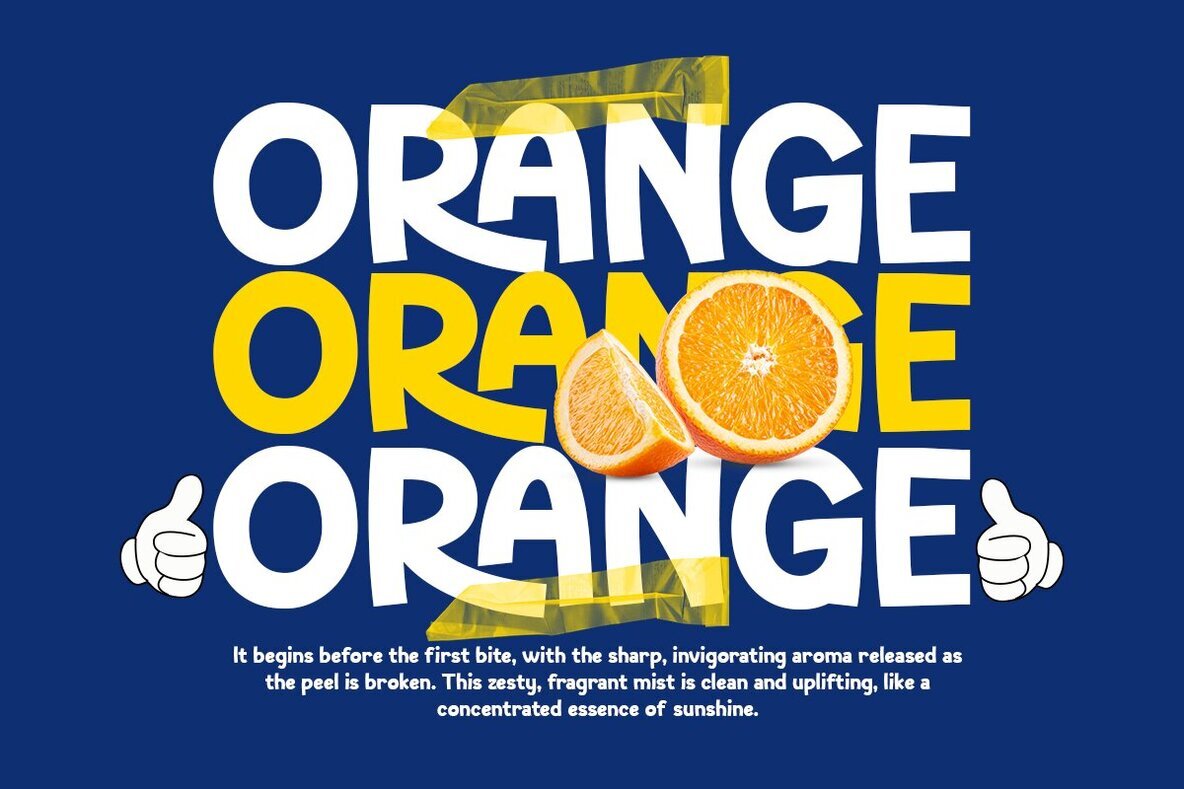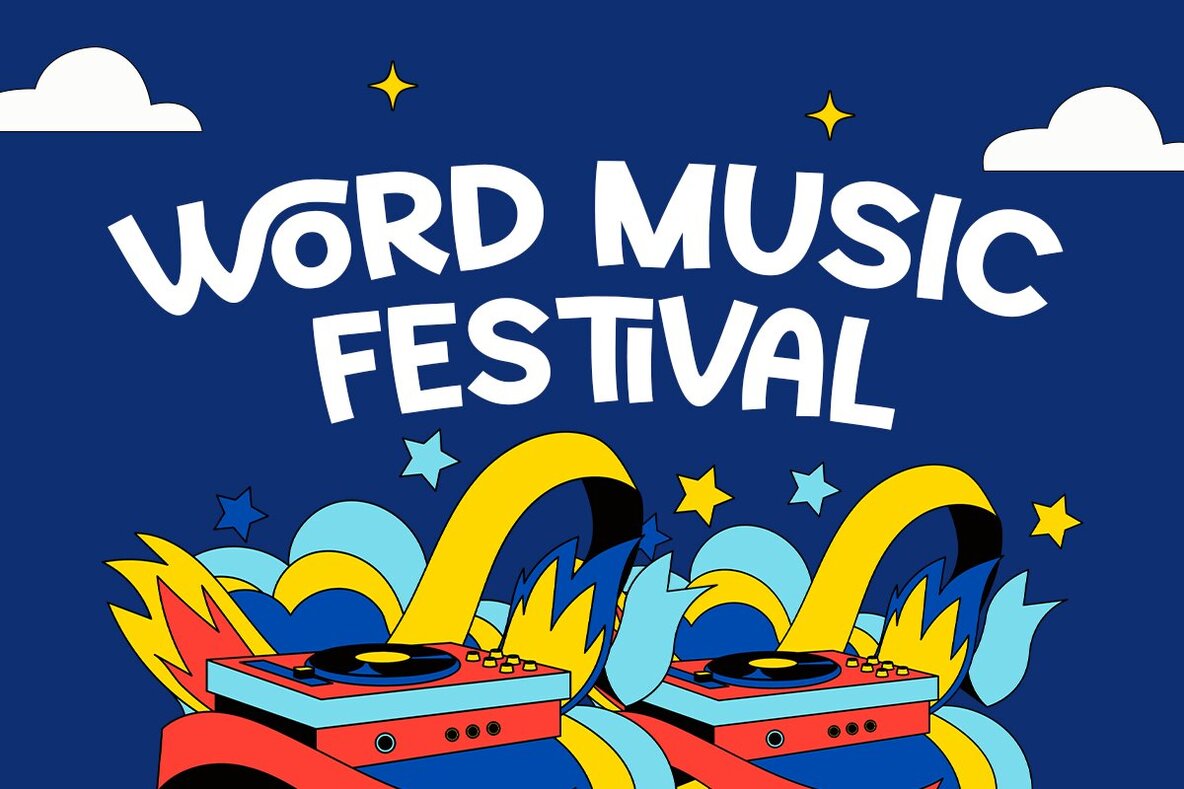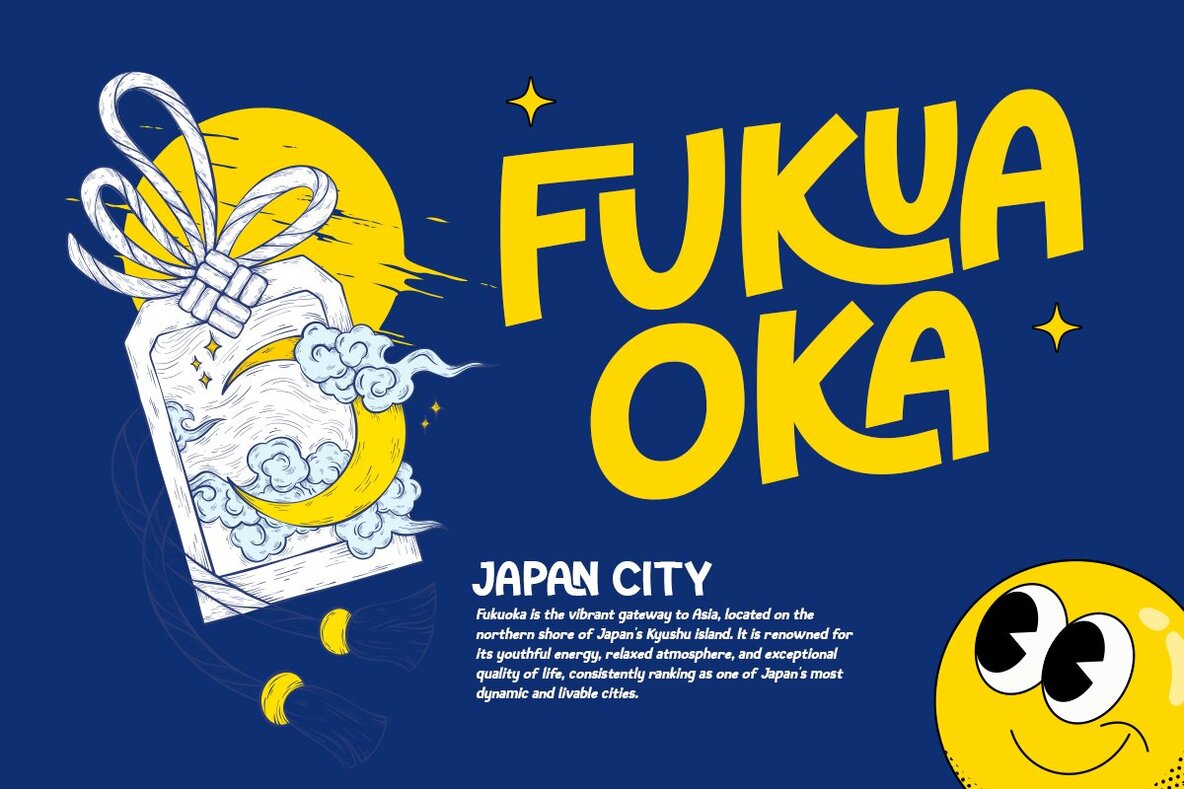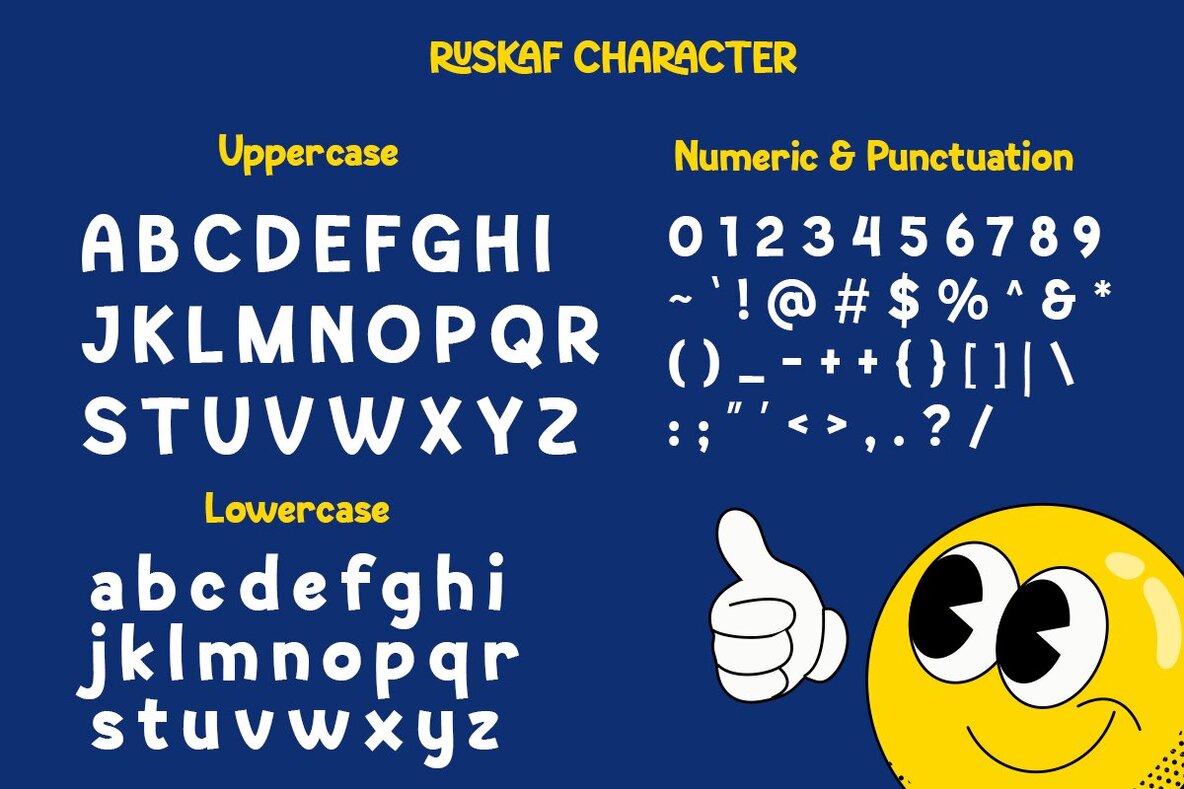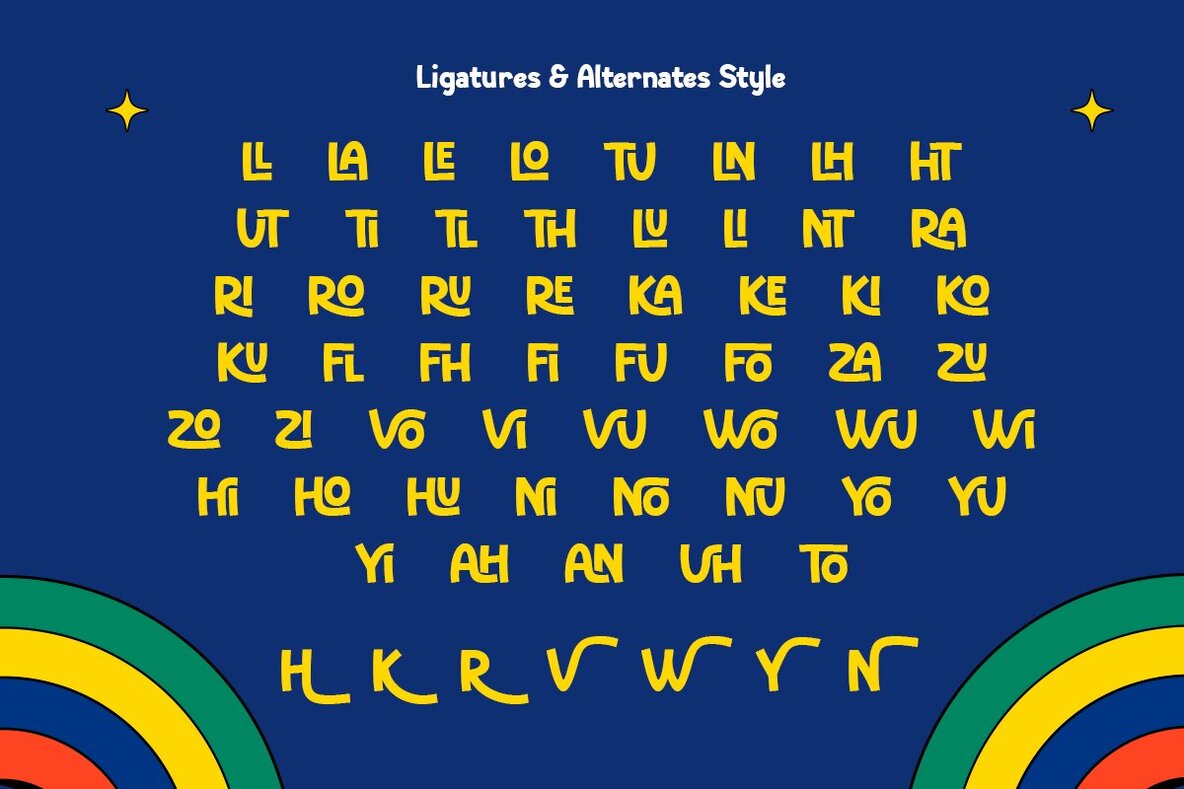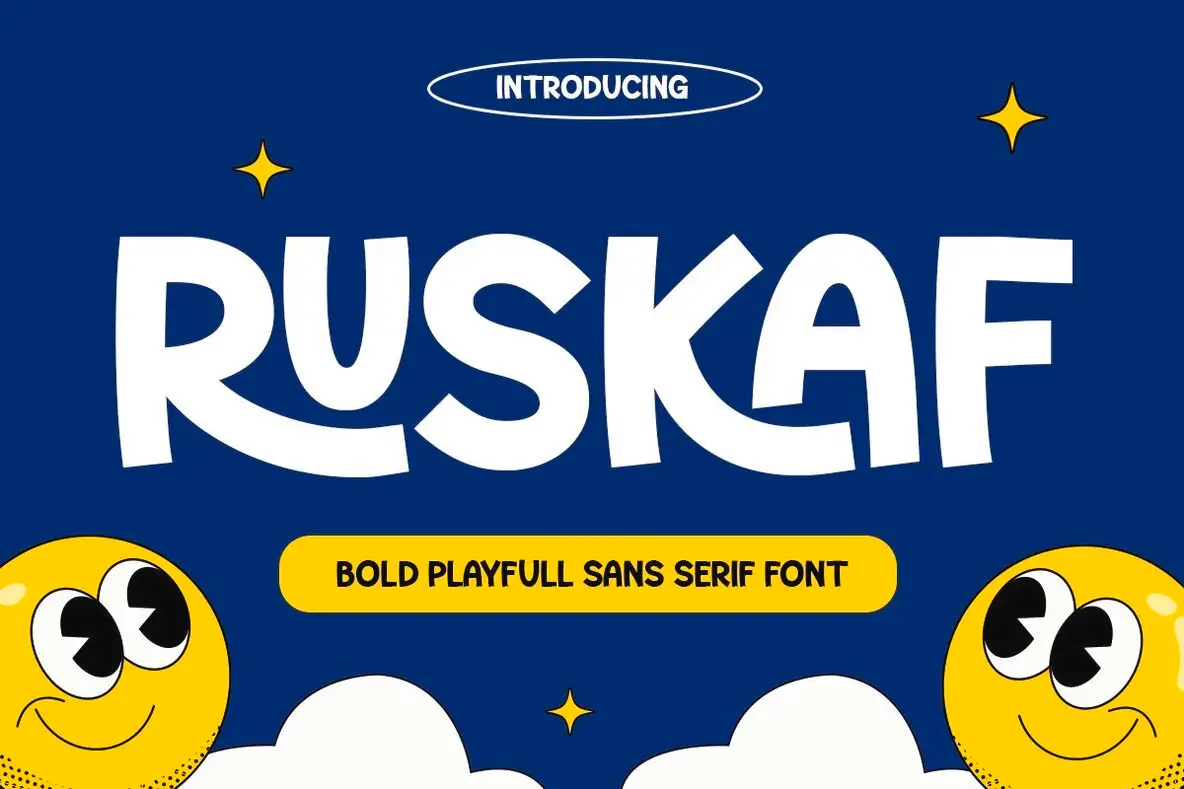
Ruskaf Font
Ruskaf is a bold sans serif font designed with rounded edges and dynamic forms, creating an upbeat and cheerful aesthetic. Its approachable shapes make it an excellent choice for projects aimed at spreading positivity and joy. From kids' designs to posters, branding, packaging, and social media graphics, Ruskaf fits settings that call for a friendly, energetic touch. The font’s bold weight guarantees clear readability, while its playful curves introduce a sense of creativity with every letter. Ruskaf’s design ensures each message stands out and remains engaging, making it ideal for lighthearted branding and imaginative layouts.Ruskaf – Bold Playful Sans Serif Font